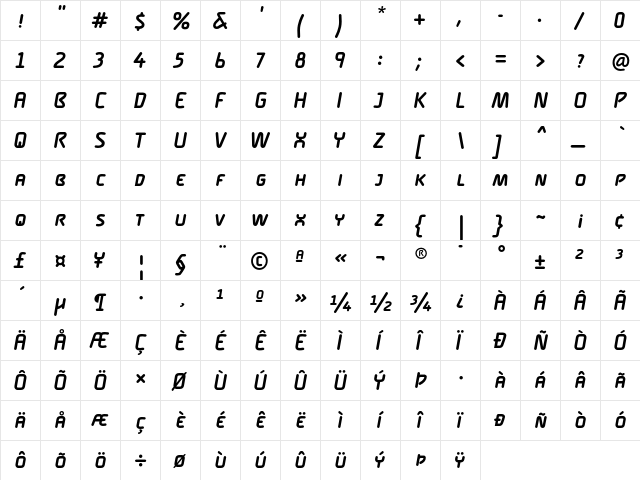
Alega-BoldSmallCapsItalic Regular Font Preview
| Foundry | Siegfried Rueckel, published by FontShop International for the FontFont library |
Design Context for Alega-BoldSmallCapsItalic Typeface
Alega-BoldSmallCapsItalic takes a measured approach to typography — its balanced proportions and neutral character make it a reliable workhorse for both digital and print work. The slanted form adds forward momentum and visual energy. Its bold stroke weight gives it real presence on the page.
Pro Tip: Try Alega-BoldSmallCapsItalic for annotation and caption copy alongside an upright companion — the contrast in angle creates a dynamic but ordered typographic system.